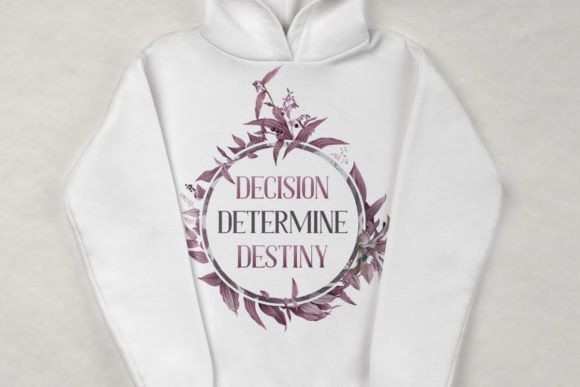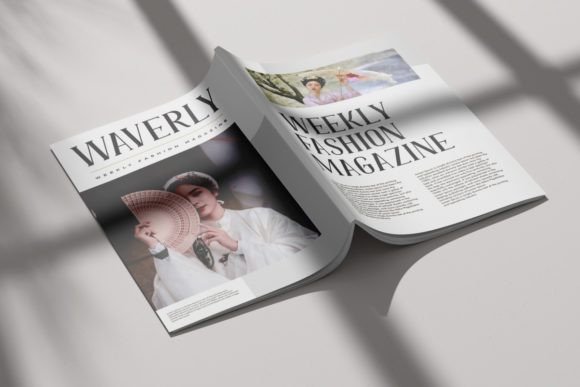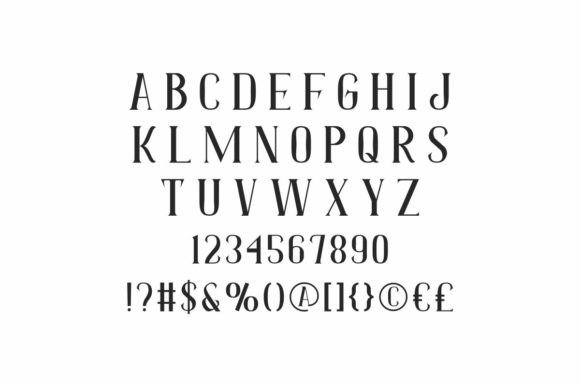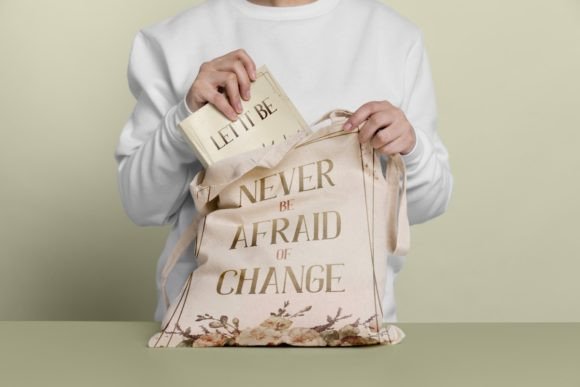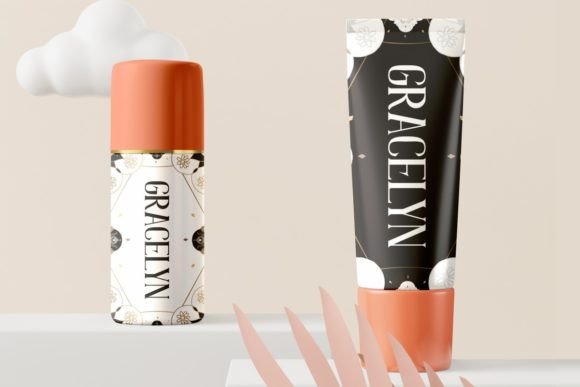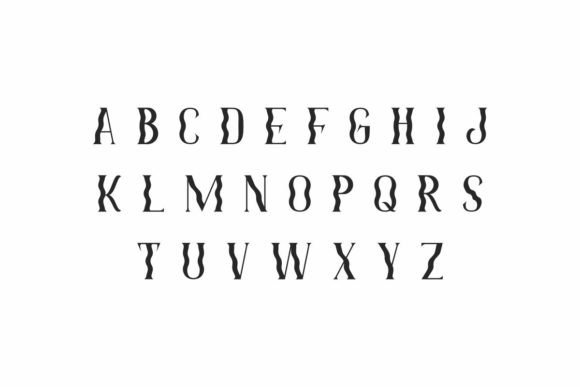
The Perfect Harmony of Form and Function: Unveiling the Beige Wave Font
Have you ever been stuck on a design project, searching for that one elusive element to tie everything together? You know, that perfect combination of style and substance that makes your creation truly shine. For designers, this is a familiar conundrum. But what if I told you that the solution lies in the subtle yet striking curves of the Beige Wave Font?
This charming serif font boasts wavy curves that add a playful touch to any design, while its balanced weight and soft edges provide a sense of sophistication and elegance. Whether you’re crafting a logo, brochure, or website, the Beige Wave Font is the perfect addition to bring your vision to life. With its friendly and approachable feel, this versatile font is an invaluable tool for designers seeking to elevate their work and connect with their audience.
- Unique Characteristics: Distinctive wave-like design elements, creating a soft and calming visual effect
Beige Wave Font Review
I recently had the chance to work with the Beige Wave Font, and I’m sharing my honest thoughts about it. Here’s what I think.
Unique aesthetic: Beige Wave Font has a distinct, wavy design that adds a touch of personality to any project. It’s perfect for creative projects that require a bit of whimsy.
Legibility: Despite its unconventional design, Beige Wave Font is surprisingly easy to read, making it suitable for a wide range of applications.
Cross-platform compatibility: I’ve used Beige Wave Font on both Mac and PC, and it works seamlessly across both platforms.
Limited font sizes: Beige Wave Font is best suited for larger font sizes, as it can become distorted at smaller sizes.
Not ideal for formal projects: While Beige Wave Font is great for creative projects, it may not be the best choice for formal documents or professional applications.
Beige Wave Font is a unique and eye-catching font that’s perfect for adding a touch of personality to creative projects. While it has some limitations, it’s a great choice for those looking for a distinctive design. With its ease of use and cross-platform compatibility, I’d definitely recommend giving it a try.
The Beige Wave Font is a unique and stylish font that is perfect for:
- Creative projects, such as invitations, posters, and social media graphics.
- Personal branding, such as business cards, logos, and website headers.
- Wedding invitations and other special occasion stationery.